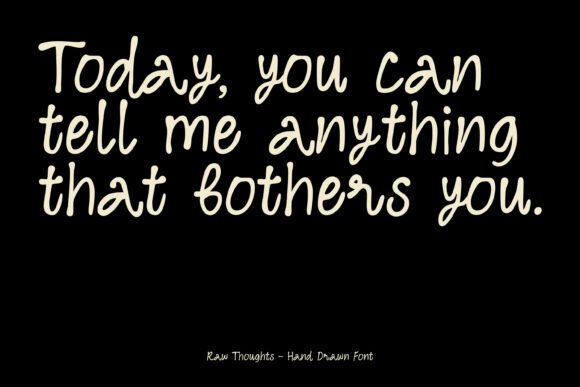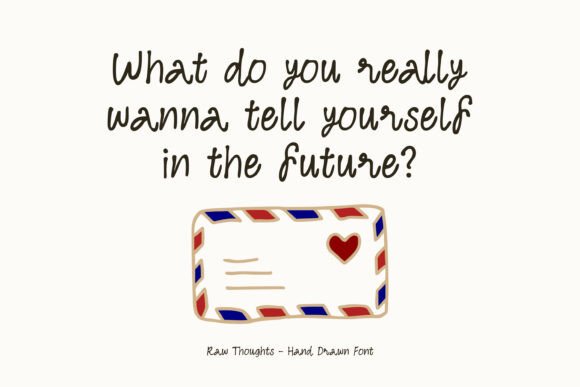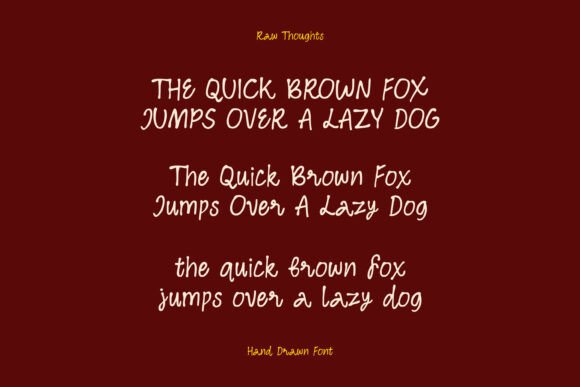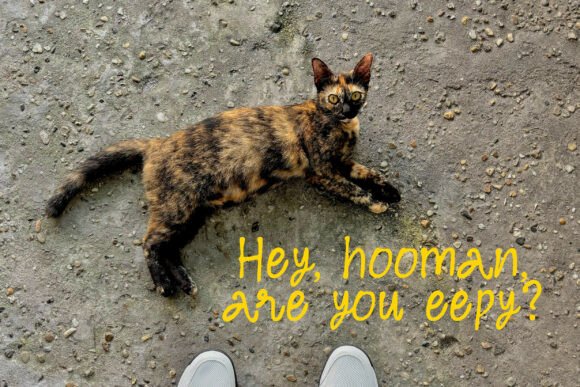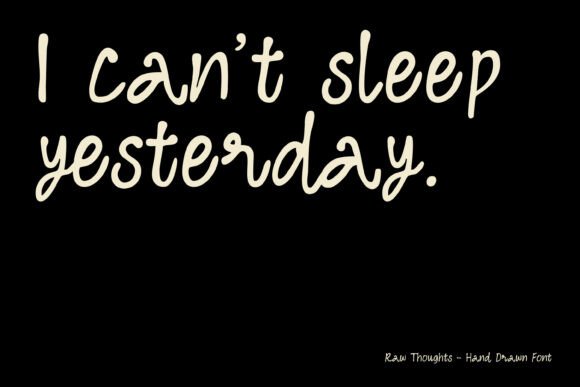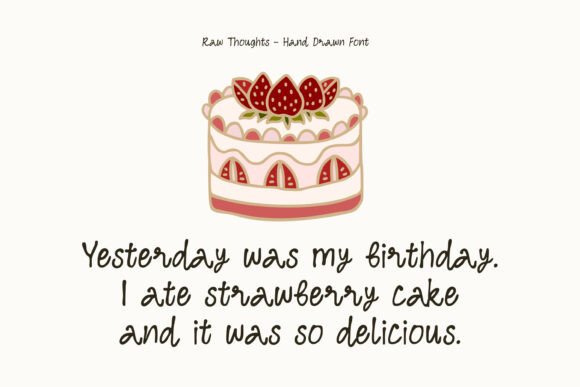
Introduction to Raw Thoughts Font
As a designer, have you ever found yourself flipping through the pages of a worn journal, searching for inspiration? Maybe you’re drawn to the imperfections and quirks of handwritten notes, the way the ink bleeds through the pages, and the feeling of vulnerability that comes with putting your thoughts down on paper. The Raw Thoughts font captures that same essence, distilling it into a beautiful, hand-drawn typeface that’s perfect for creative projects that require a human touch.
With its organic line jitter and natural flow, the Raw Thoughts font feels like it was written in the margins of a notebook, making it ideal for lifestyle photography overlays, poetry books, and intimate social media captions. Whether you’re a designer looking for a new design resource or a small business owner seeking to communicate honesty and simplicity, the Raw Thoughts font is an excellent choice.
Key Features of Raw Thoughts Font
- High-quality font with a unique, hand-drawn style, perfect for creative projects requiring a personal touch.
- Comes with a transparent background, making it easy to integrate into any design without visual clutter.
- Includes a range of glyphs and characters, making it suitable for a variety of creative projects, from logos to typography-based designs.
- Designed to be highly versatile, the Raw Thoughts Font is ideal for use in digital and print projects, including posters, flyers, and social media graphics.
- Perfect design resource for designers and artists seeking a unique, high-quality font to elevate their creative projects.
Honest Review: Raw Thoughts Font
I recently had the chance to work with the Raw Thoughts Font, and I have to say, I was both impressed and slightly disappointed. Let’s dive into the details.
- High-quality design: The font is well-crafted, with a unique and interesting style that can add a creative touch to any project.
- Limited character set: The font only includes a limited set of characters, which can be a problem for designers who need to use the font for a wide range of text.
- No bold or italic versions: The font is only available in regular weight, which can limit its use in certain design contexts.
Overall, I think the Raw Thoughts Font is a solid choice for designers who need a unique and high-quality font for a creative project. However, its limitations should be taken into consideration before making a final decision.
Alternatives to Raw Thoughts Font
Pacifico is a high-quality, elegant script font perfect for creative projects that require a touch of sophistication. It’s ideal for wedding invitations, branding, and packaging design. With a transparent background, it can be easily layered over other design elements.
Compared to Raw Thoughts Font, Pacifico has a more refined and polished look, making it suitable for a wider range of design projects. It’s available for free download and is compatible with most design software.
Great Vibes is a modern script font that’s perfect for creating a fun and energetic atmosphere in your design. It’s ideal for social media graphics, advertising, and event promotions. With a free download option, it’s an excellent resource for designers on a budget.
Compared to Raw Thoughts Font, Great Vibes has a more playful and carefree vibe, making it suitable for younger audiences and creative projects that require a high level of energy.